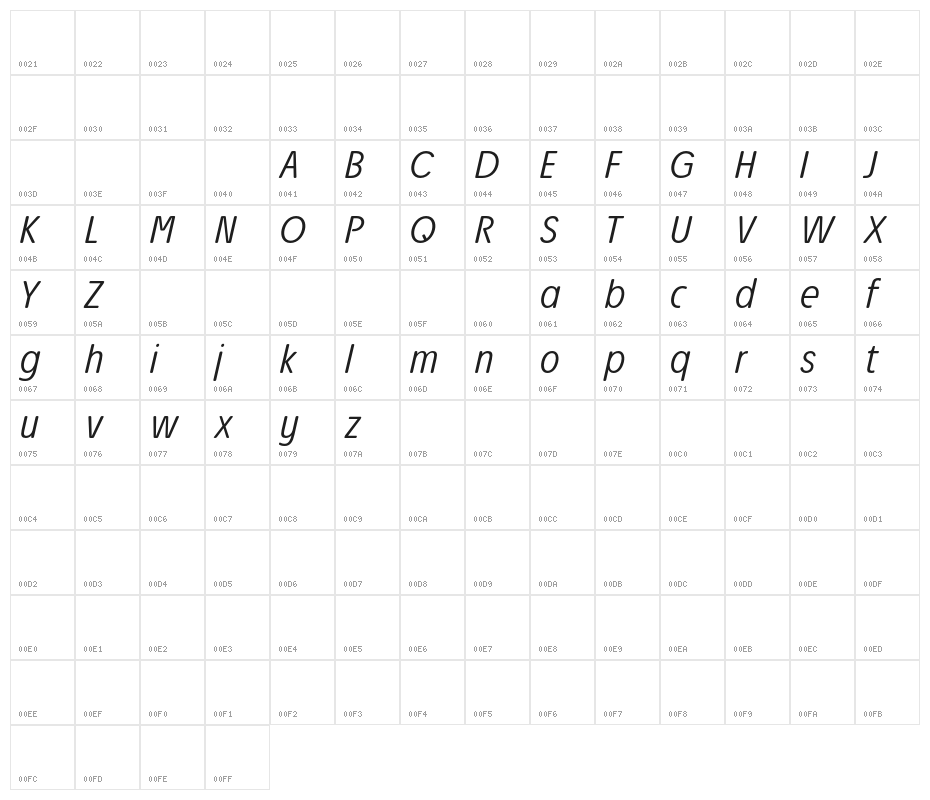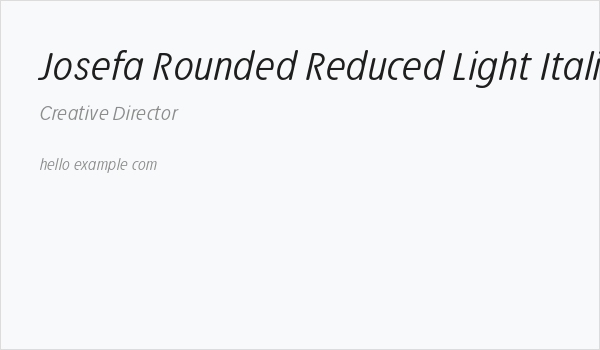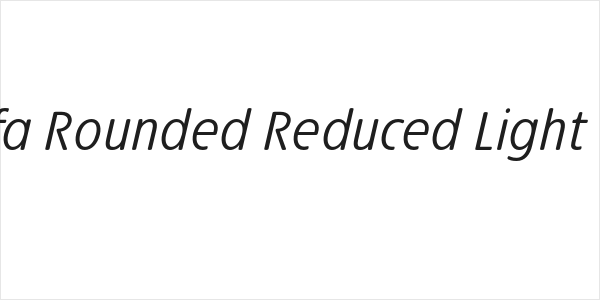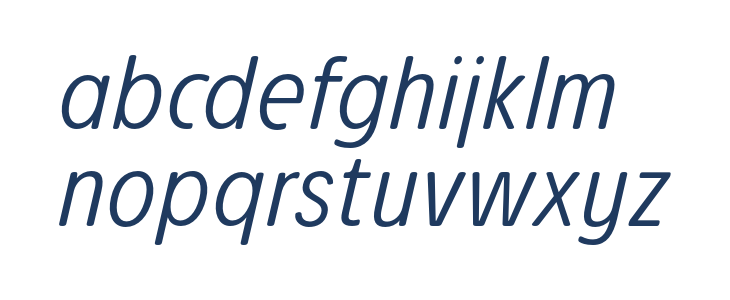
Josefa Rounded Reduced Light Italic Font
Josefa Rounded Reduced Light Italic Description
This font features a sleek, modern design with rounded edges that give it a friendly and approachable appearance. The characters are slightly condensed, enhancing readability while maintaining a stylish look. The italic style adds a sense of motion and elegance, making it suitable for dynamic and contemporary designs. The light weight of the strokes contributes to a clean and airy feel, perfect for projects that require a subtle yet sophisticated touch. The overall design is minimalist, focusing on clarity and simplicity, which makes it versatile for various applications.
| Proposed Projects | Ideal for branding, web design, advertising, and editorial projects where a modern and friendly aesthetic is desired. |